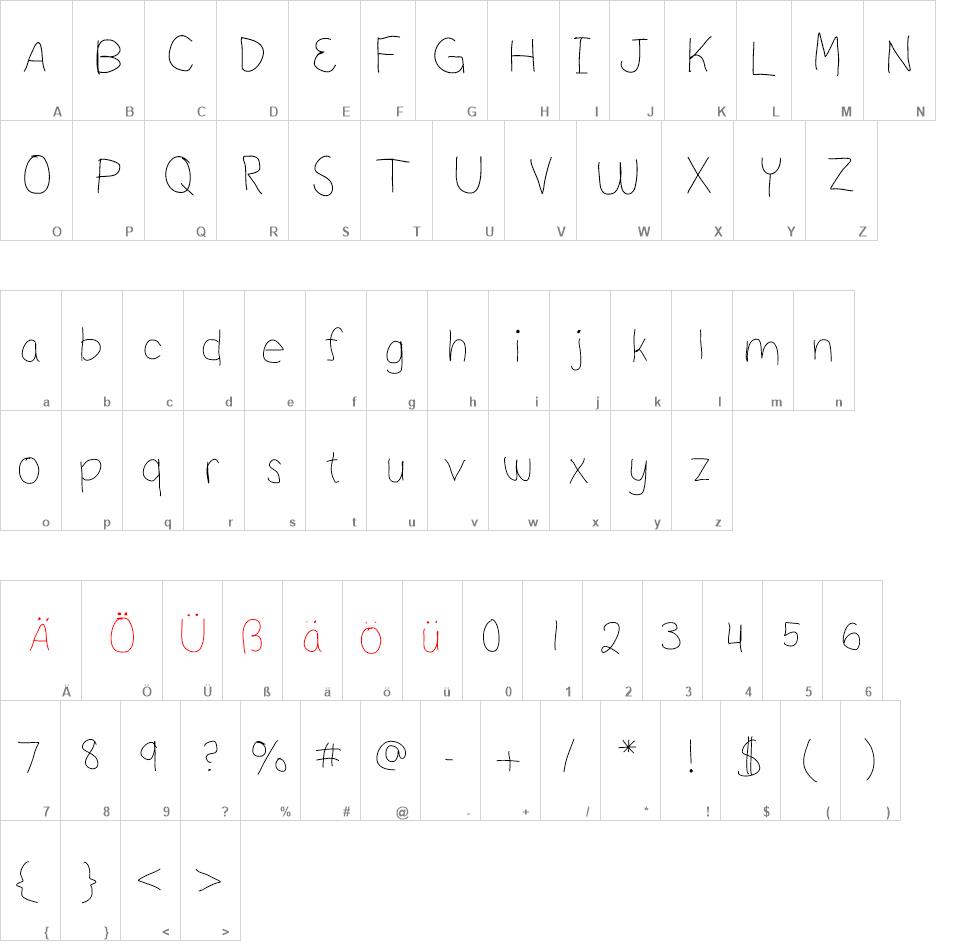
Emmis
Emmis font
Emmis
Hi! My name is Matt Bruinooge. Thanks for checking out my typeface. Emmis is based on my sister Emily's handwriting. I called her Emmis when I was little. I love her!